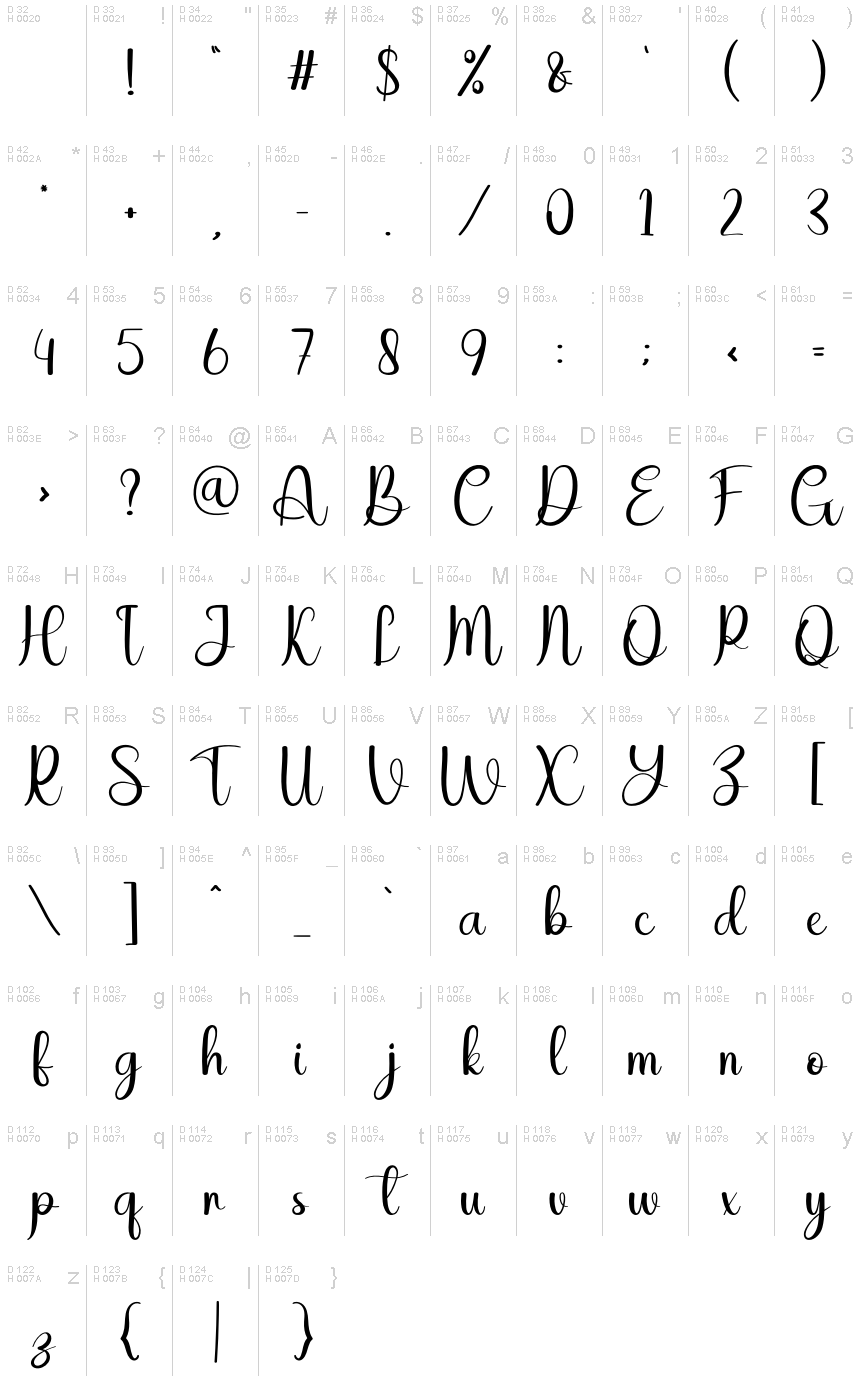
Winter Short
Winter Short is a captivating calligraphy font that exudes elegance and sophistication. Designed by Andi Moz, this font boasts a stunning cursive script with fluid, graceful strokes that evoke a sense of warmth and artistry. The delicate, looping letterforms and the seamless connections between characters create a harmonious and visually appealing aesthetic.
Winter Short's versatility makes it an ideal choice for a wide range of design projects, from wedding invitations and greeting cards to branding materials and editorial layouts. Its timeless charm and refined style lend a touch of sophistication to any piece, effortlessly elevating the overall visual impact.